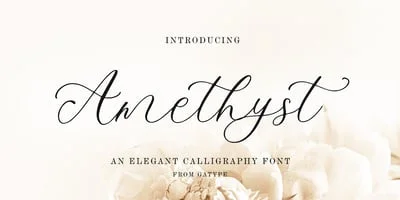
Amethyst Font
Amethyst Font is ideal for luxury branding, jewelry websites, fashion magazines, cosmetic packaging, wedding stationery, spa and wellness brands, premium product catalogs, boutique hotels, fine art galleries, and high-end retail displays. This sophisticated typeface shines in projects that require elegance, refinement, and a touch of glamour.
What makes Amethyst Font exciting is its exquisite balance between classic elegance and contemporary sophistication. The font embodies the precious qualities of its namesake gemstone through graceful curves, refined letterforms, and luxurious character spacing. Each glyph is carefully crafted to convey premium quality and exclusivity, making it perfect for brands that want to communicate luxury, beauty, and timeless appeal to their audience.
Amethyst Font includes multiple font families such as Regular, Bold, Light, Italic, Semi-Bold, and Decorative variants. Each family member maintains the signature elegance while offering different stylistic options to create sophisticated typography hierarchies and versatile design solutions.
This premium typeface serves as an exceptional choice for designers working with luxury brands, fashion houses, and premium lifestyle products. Amethyst Font provides outstanding value for creative professionals, brand designers, and marketing agencies specializing in high-end markets. The font's refined aesthetics make it particularly suitable for editorial design, luxury packaging, exclusive events, and premium digital experiences.
Whether you're creating brand identity for a luxury jewelry line, designing invitations for exclusive events, or developing marketing materials for premium services, Amethyst Font adds the perfect touch of sophistication and elegance to elevate any project.